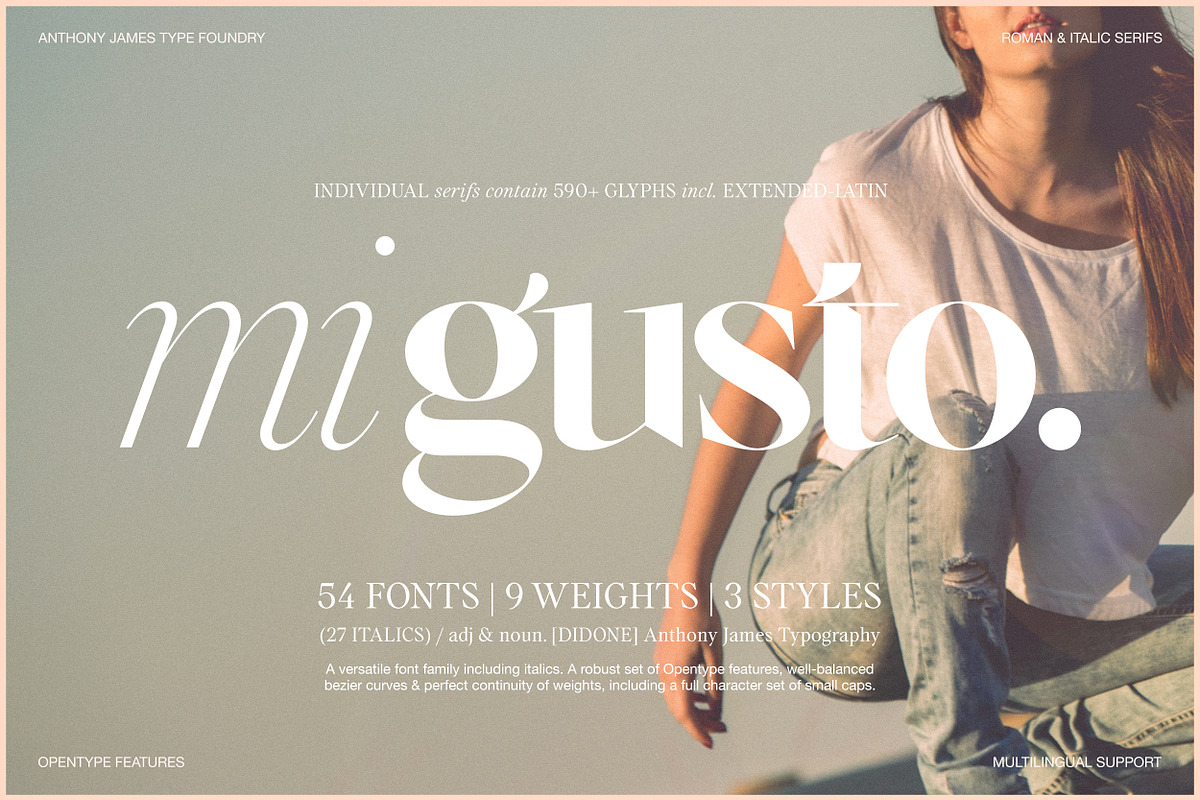
Mi Gusto Font Family
Mi Gusto Font Family brings a balanced structure and contemporary look, making it suitable for both digital and print design. Crafted with elegant italics and a robust set of Opentype features. Refined letterforms defined by high-contrast strokes, well balanced bezier curves & a perfect continuity of weights.
Housing 54 fonts (27 matching italics), encompassing endless weight combinations, making it a definitive choice for high-end logos and luxury branding. Thriving as both a commanding display face for bold headlines and a graceful companion for long-form text based features.
For editorial purposes, the spacing is geared towards legibility as body text. For display purposes (fashion/magazine headings), we recommend reducing the letter spacing for a better aesthetic.